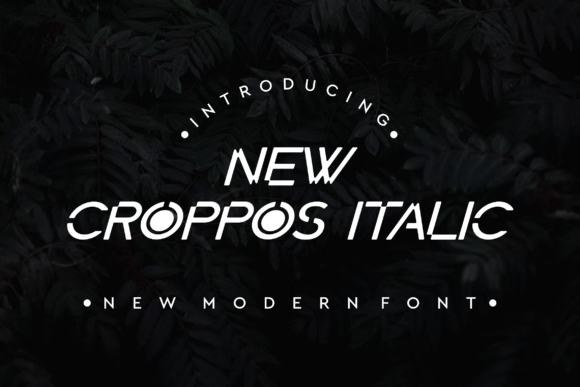
New Croppos Italic: A Modern Display Font for Editorial Design
There is a specific moment in every editorial layout project when the grid is set, the images are placed, and the body copy is flowing, yet the design still feels unfinished. It lacks a voice. I experienced this exact pause last week while redesigning a digital lifestyle guide focused on slow living and intentional home rituals. The content was warm and grounded, but my initial font choices felt either too sterile or excessively ornate. I needed a typeface that could bridge the gap between modern minimalism and human warmth. That search led me to test New Croppos Italic, a display font that ultimately transformed the entire reading experience of the publication.
Choosing typography for editorial work is rarely just about aesthetics; it is about pacing and emotion. New Croppos Italic immediately stood out because it does not shout for attention. Instead, it invites the reader in with a quiet confidence. Its visual character is undeniably classy, featuring clean lines and a rhythmic slant that suggests movement without sacrificing legibility. In the context of my lifestyle guide, it provided the perfect tonal anchor for chapter titles and pull quotes, signaling to the reader that they were entering a space of curated calm.
Establishing Visual Hierarchy in Digital Publications
When designing for screens, whether it is a blog header, a newsletter graphic, or a PDF workbook, hierarchy is everything. Readers scan before they read, and the typeface you choose for your primary headings dictates where their eyes land first. During my layout testing, I found that New Croppos Italic excels at creating distinct separation between structural elements and narrative text. Its italicized form naturally differentiates itself from standard upright body copy, reducing the need for heavy bolding or excessive color contrast to establish importance.
For the lifestyle guide, I utilized this font specifically for section openers and featured insights. The modern typography of New Croppos Italic allowed these elements to function as visual breathers. Unlike heavier slab serifs or complex script fonts that can clutter a mobile screen, this typeface maintains an airy presence. It respects the whitespace around it, which is crucial for maintaining a relaxed reading rhythm in digital environments where eye fatigue is a genuine concern. The result was a layout that felt spacious and intentional, guiding the audience through the content with gentle authority.
Practical Applications Across Content Formats
While my recent project was a digital guide, the versatility of this display font became apparent as I considered its application across other editorial formats. Its balanced personality makes it suitable for a wide variety of projects where sophistication is key.
- Wedding Stationery and Guides: The elegant slant and refined strokes make it ideal for invitations, seating charts, and wedding website headers where a touch of romance is needed without veering into old-fashioned calligraphy.
- Recipe Ebooks and Food Blogs: Culinary content benefits from typography that feels organic yet structured. New Croppos Italic works beautifully for recipe titles and ingredient highlights, adding a artisanal quality to food photography layouts.
- Coaching Workbooks and Journals: For transformational content, the font’s humanist qualities help build trust. It feels personal enough for reflective prompts but professional enough for instructional frameworks.
- Newsletter Headers and Social Graphics: In the confined spaces of Instagram carousels or email subject banners, the font’s clarity ensures readability even at smaller sizes, helping to reinforce brand identity instantly.
In each of these scenarios, the font acts as a supportive partner to the content rather than a distraction. It enhances the mood—be it celebratory, educational, or introspective—without overpowering the message.
The Art of Thoughtful Font Pairing
A display font never exists in isolation. The success of New Croppos Italic in my layout depended heavily on what I paired it with. Because this typeface carries a distinct personality and decorative flair, it demands a supportive partner for body text. During the design process, I tested several combinations to find the right balance.
Pairing it with a clean, neutral sans serif font created a contemporary, high-fashion editorial look that worked well for shorter, punchier sections. However, for the longer narrative portions of the lifestyle guide, I opted for a readable serif font with generous x-heights. The contrast between the fluid, expressive nature of New Croppos Italic and the stable, grounded structure of a traditional serif created a dynamic tension that kept the page visually interesting. This interplay is essential in book design and long-form articles, as it prevents typographic monotony and helps distinguish between the "voice" of the heading and the "information" of the text.
I would caution against pairing this font with other highly stylized scripts or decorative displays. Doing so creates visual noise and competes for the reader's attention. Let New Croppos Italic be the singular accent piece in your typographic palette, supported by utilitarian workhorses that prioritize extended reading comfort.
Readability Considerations for Screen and Print
Beauty must always serve function in editorial design. While New Croppos Italic is stunning, it is important to understand its limitations regarding readability. As with most italic display fonts, it is not designed for setting paragraphs of body copy. Attempting to use it for long-form reading will strain the eyes and diminish the user experience. Reserve this typeface for titles, subtitles, captions, logos, and short emphasis text.
Ultimately, typography is the clothes our words wear. New Croppos Italic offers a garment that is tailored, timeless, and effortlessly chic. Whether you are refreshing a blog identity, designing a signature wedding suite, or laying out a transformative coaching course, this font brings a sense of deliberate beauty that elevates the entire project. It reminds us that in a digital landscape often defined by speed and volume, there is still profound value in slowness, elegance, and thoughtful design.